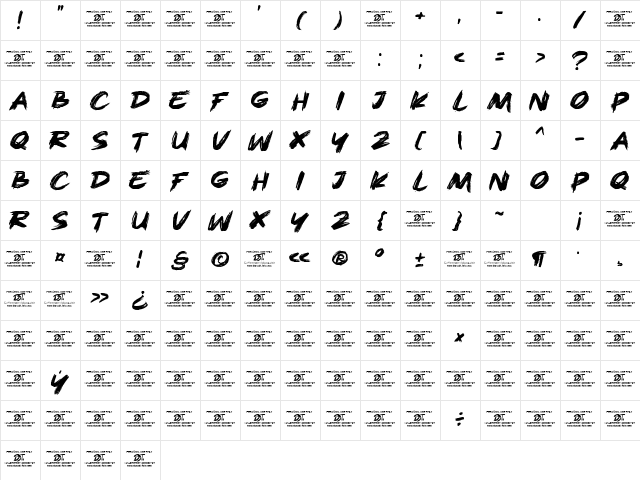
Rough Splash Regular Free Font
Rough Splash Regular
Designer: Toni Dzulham
Design Context for Rough Splash
Rough Splash embraces imperfection - its rough, textured character adds raw authenticity to designs that want to feel lived-in and unconventional.
Pro Tip: Use Rough Splash at larger sizes where the texture and irregularity of each letterform can be clearly seen - it loses its character at small sizes.